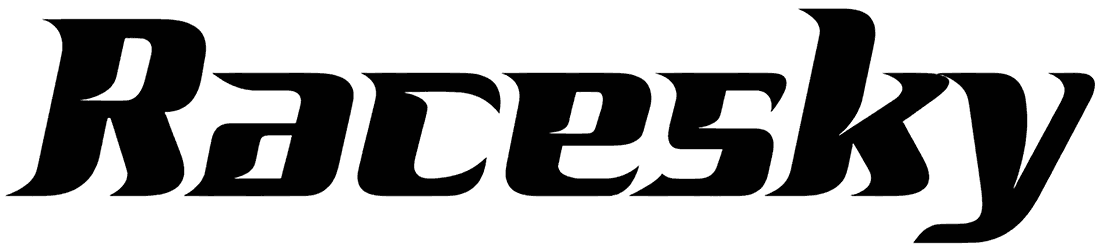
Racesky Font
Here is Racesky, a bold sci-fi font that comes with a modern and futuristic look. It will easily boost your design with its unique style. This racing font supports the alphabet and numbers, but only has @ punctuation. It is perfect for action movies, car racing, game interfaces, branding projects, and album covers.